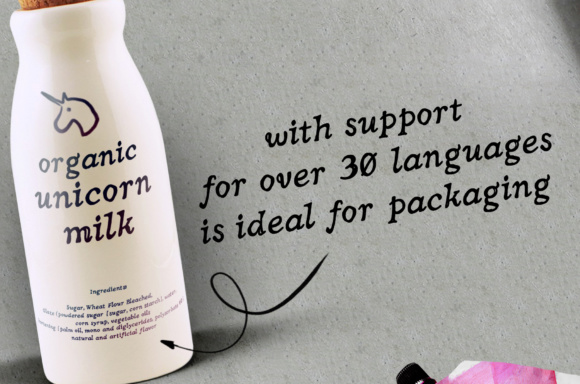
The Nadira is a high quality, Greek, hand drawn serif font that looks formal enough on wedding invitations, but is not too sketchy.
Its style is shabby chic but it still is maintaining its legibility and balance so you can use it on small text sizes too.